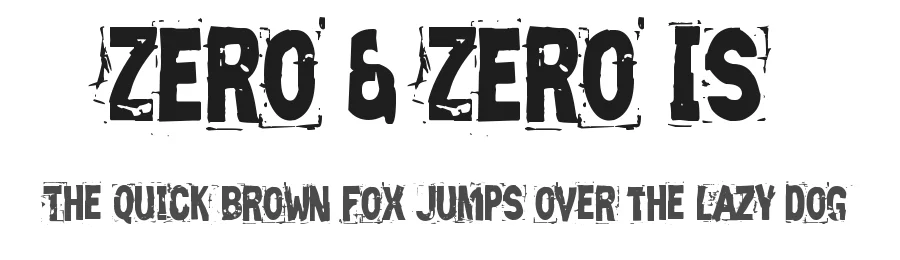
About Rubber Stamp Font
Rubber Stamp Specifications
| Font Family | RUBBER STAMP |
| Full Name | RUBBERSTAMP |
| Glyph Count | 64 glyphs |
| PostScript Name | RUBBERSTAMP |
| Designer | Billy Argel |
Rubber Stamp supports 89 languages.
Rubber Stamp Font is a decorative font that shines as a display or heading face. Pair it with a clean sans-serif or serif font for body text — the contrast creates a clear hierarchy while the two styles stay balanced and easy to read.